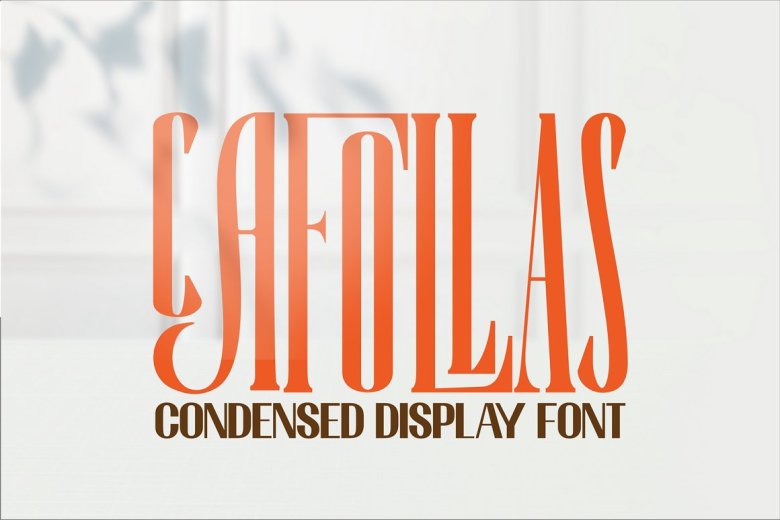
Cafollas Font is a condensed serif font developed to set off titles from other elements and bring them into display. It is brought under a single yoke and at home in contemporary use. It is a grotesque with large x-heights, very condensed indeed, and yet it has’t sacrificed its original character or form. It’s a great big font that’s sure to attract attention.
Headlines and titles, digital advertising, printed collateral material such as brochures with pictures of products on them set inside calyxed flowers from the imperial nation. Photos captured live from smartphones for Apple’s iBooks which includes everything from ebooks to graphic novels; infographics and data visualization, navigation menus and labels; web designs, logotypes, t-shirts. And many more.